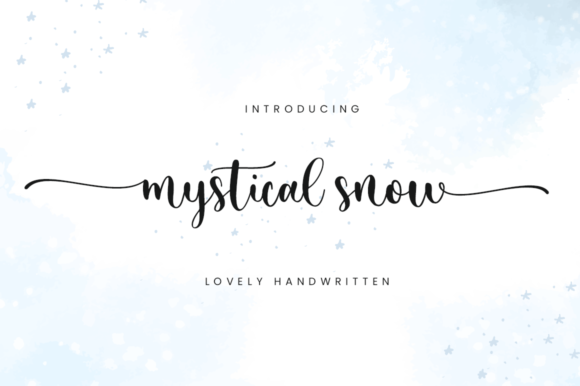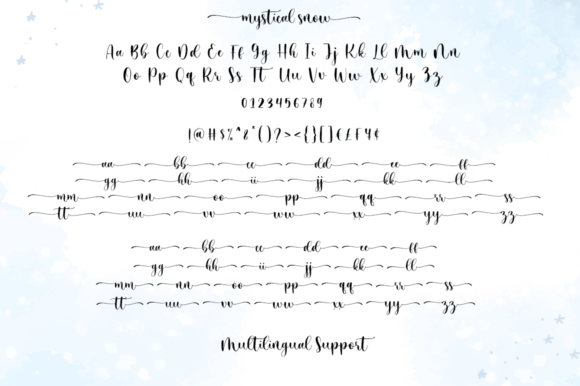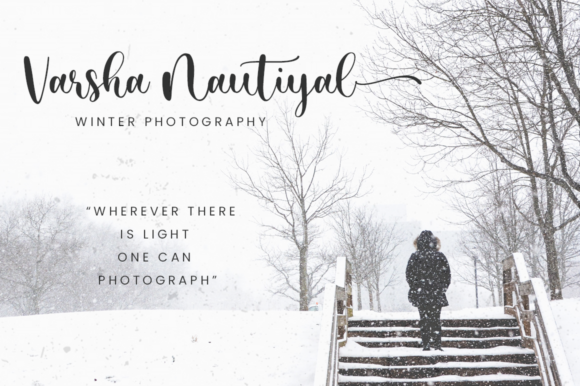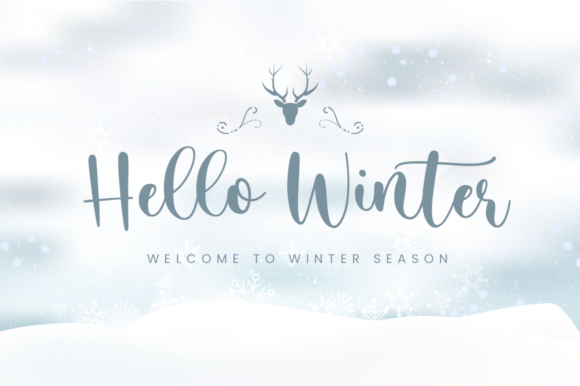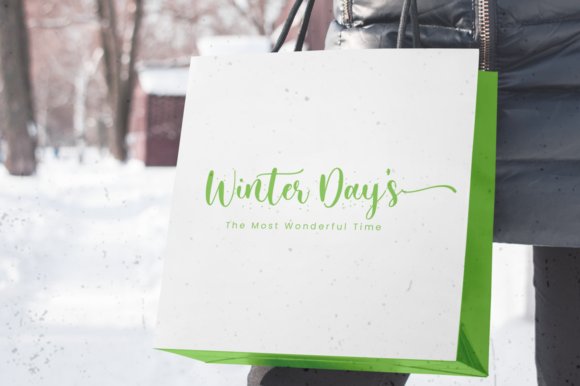
Mystical Snow Font
About Mystical Snow Font
Mystical Snow feels elegant and modern. This beautiful script font features cute swashes and ligatures that will take your design to the next level. It is perfect for crafting, branding, invitations, stationery, wedding designs, social media posts, advertisements, product packaging, photography, watermark, special events, and more!